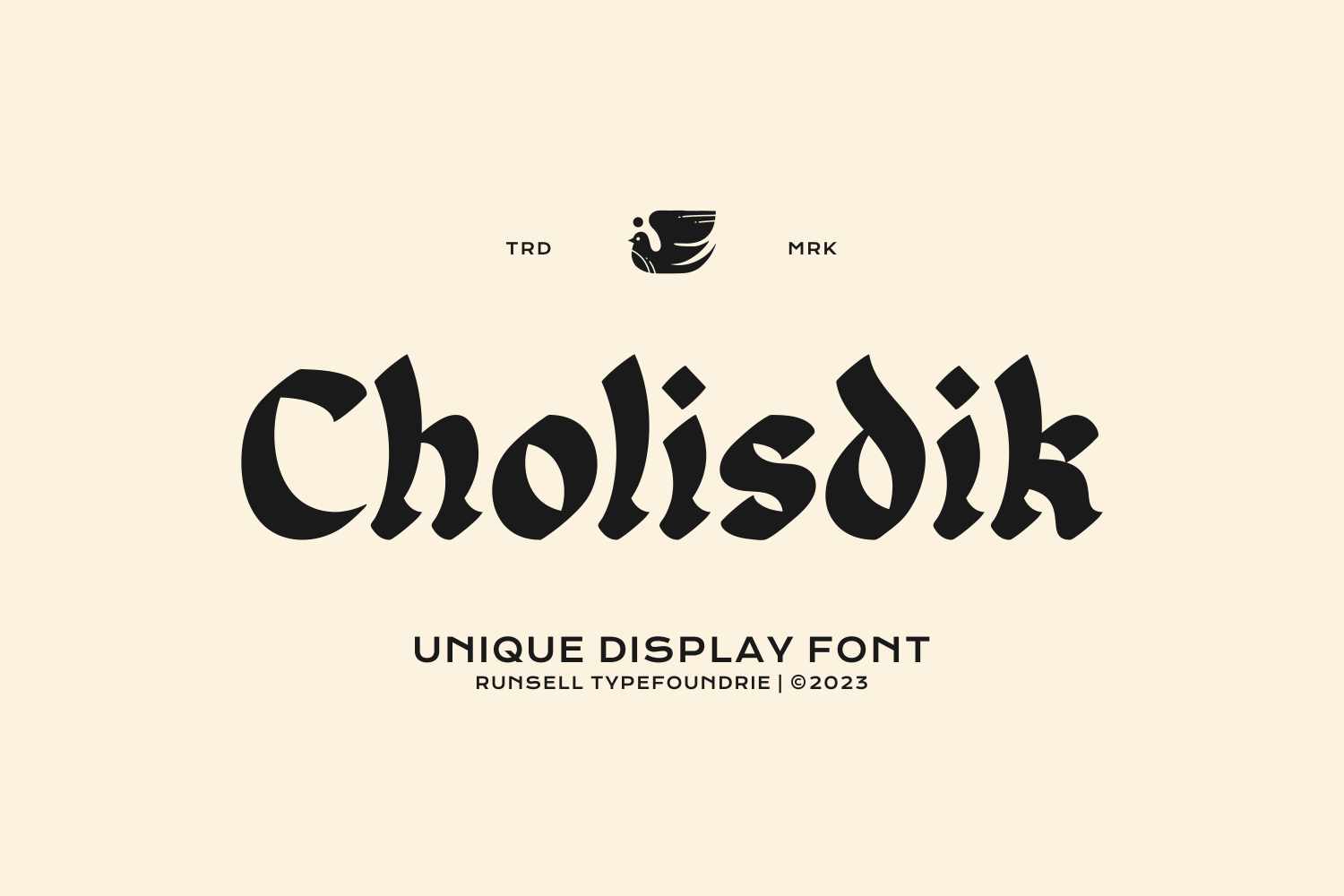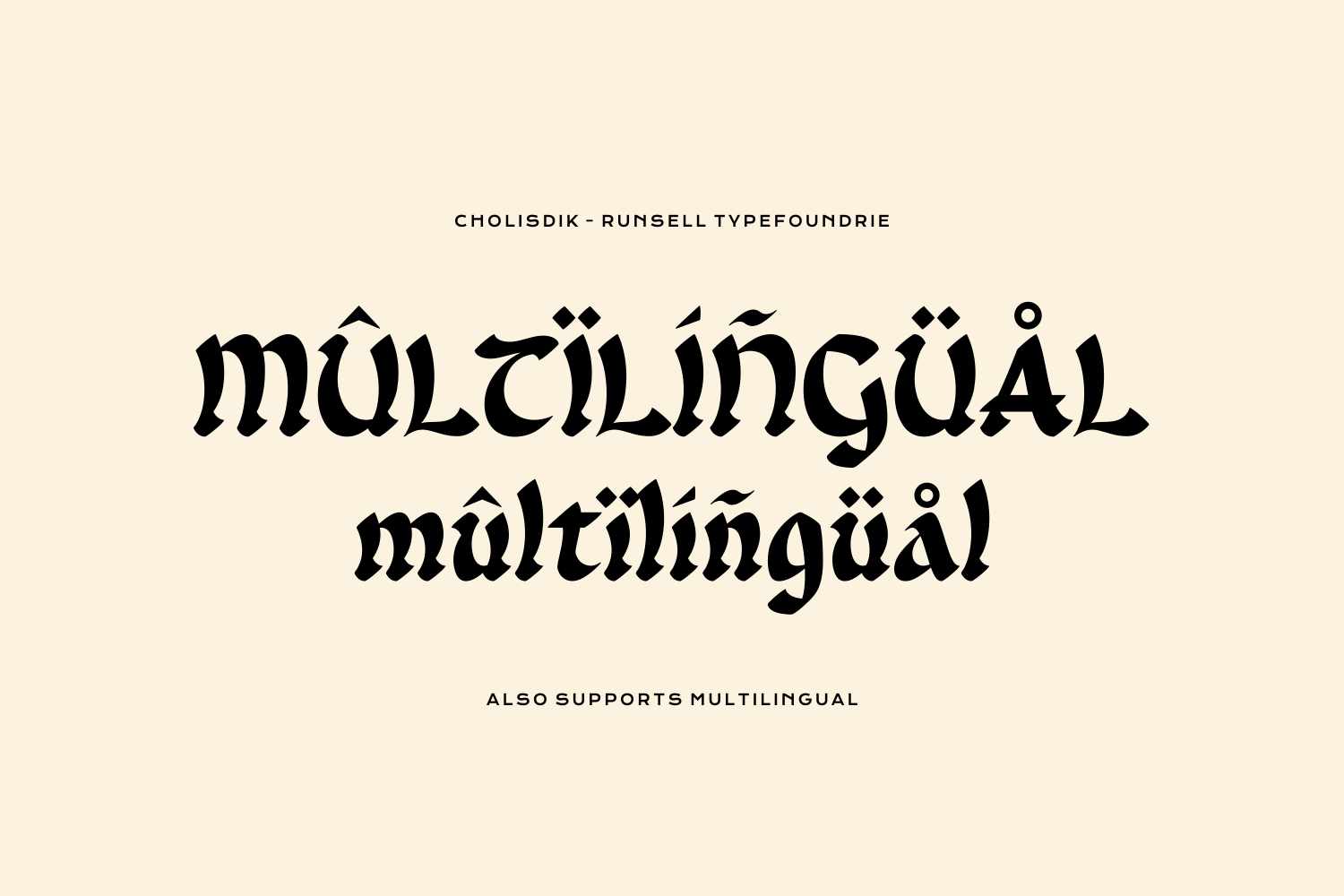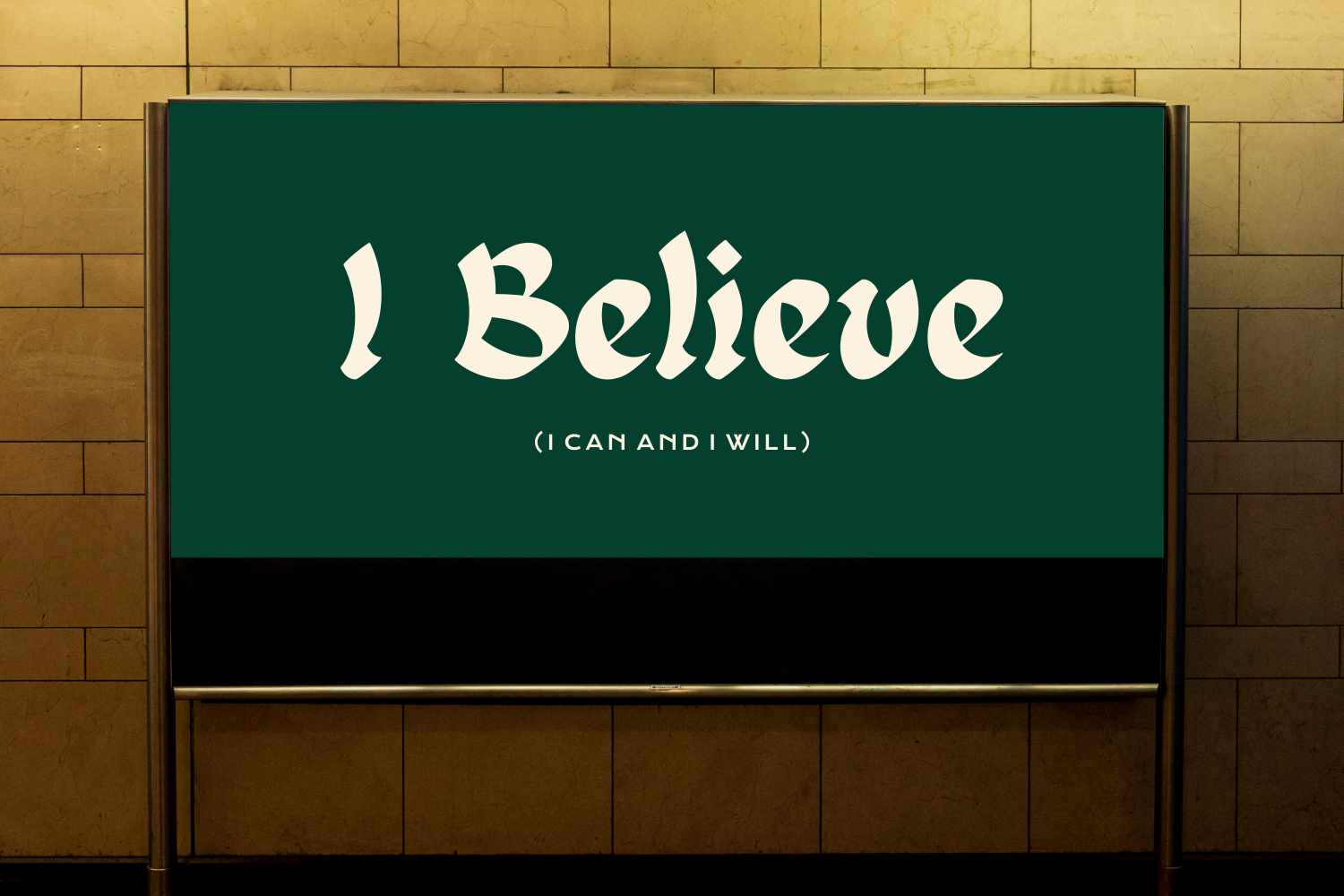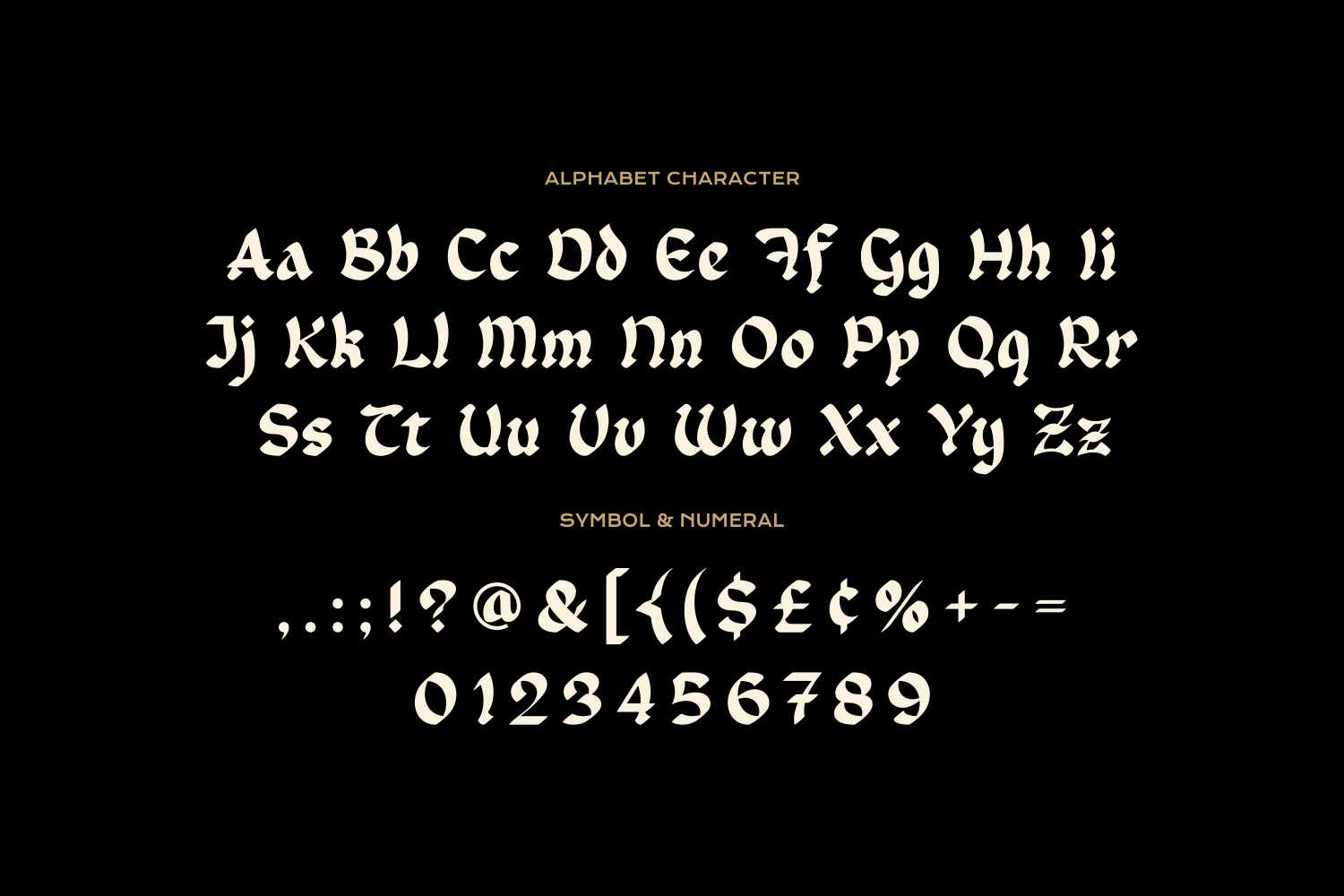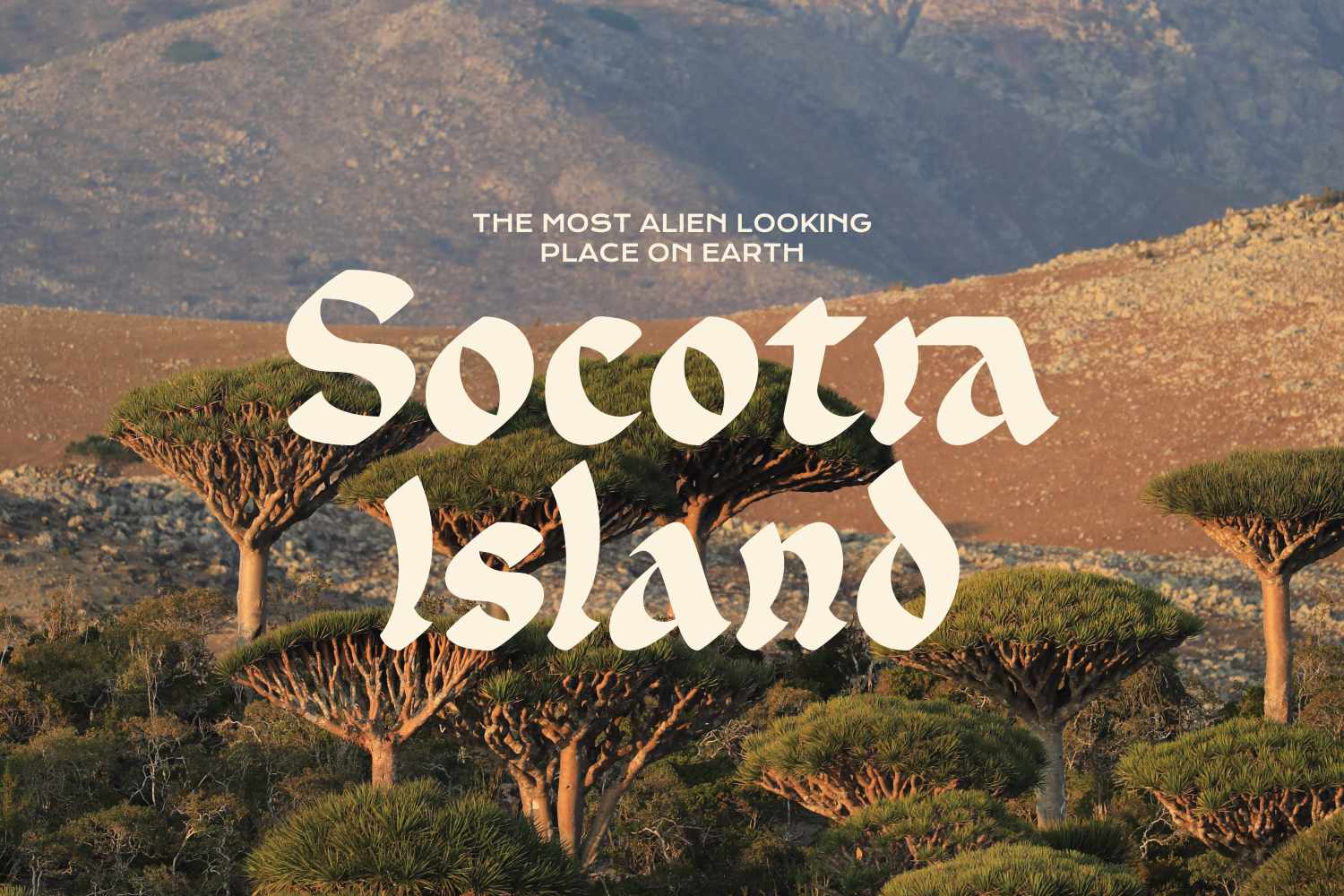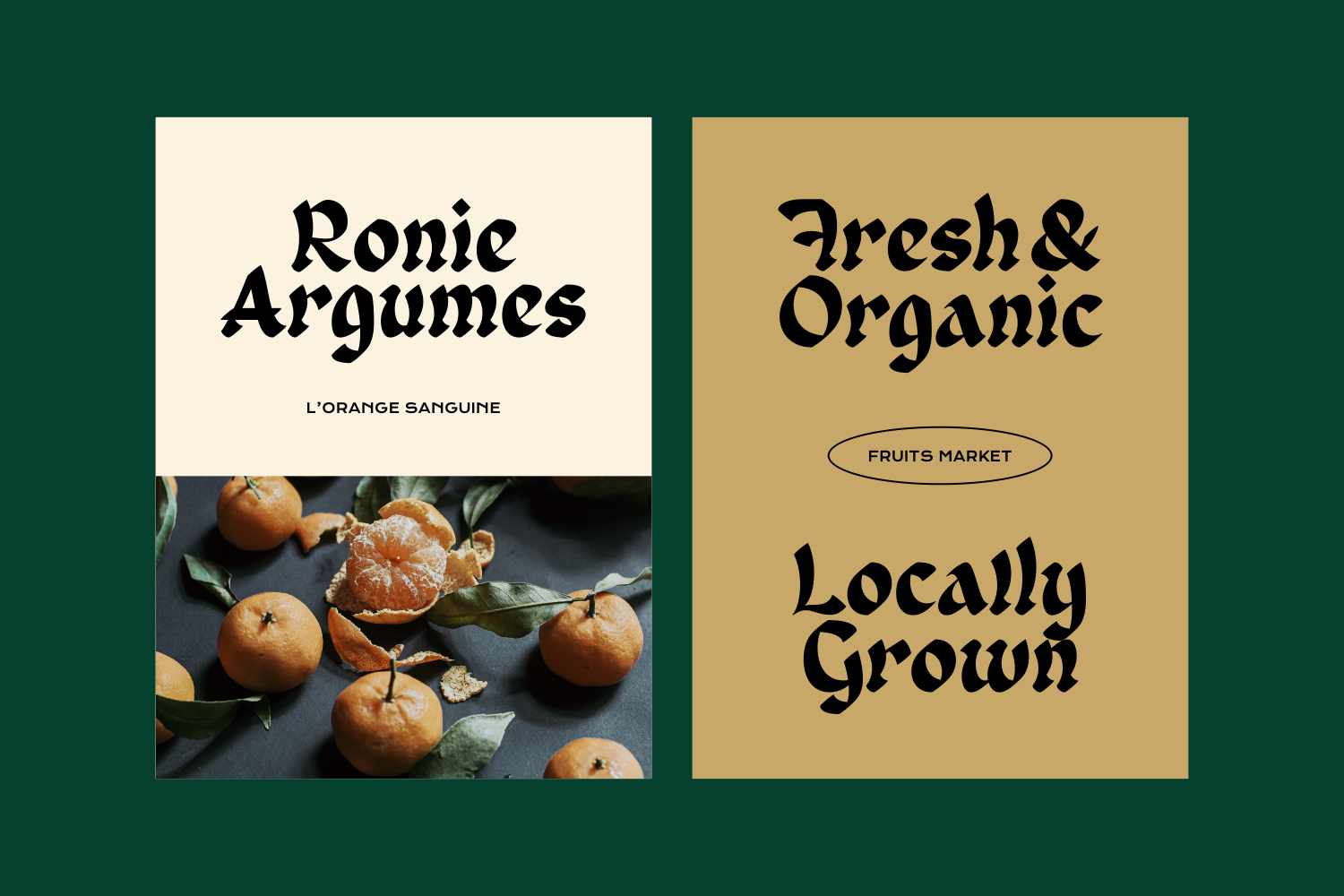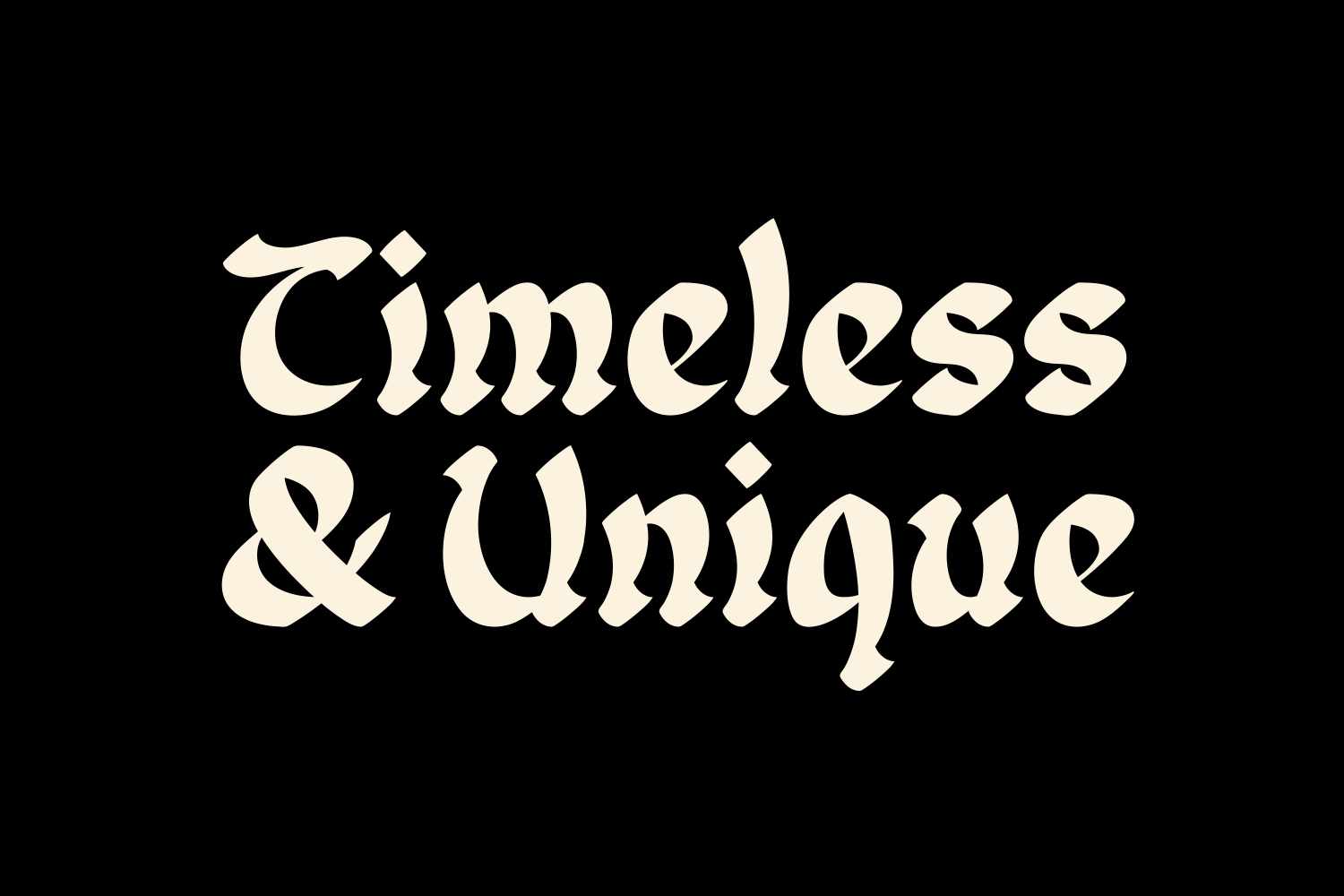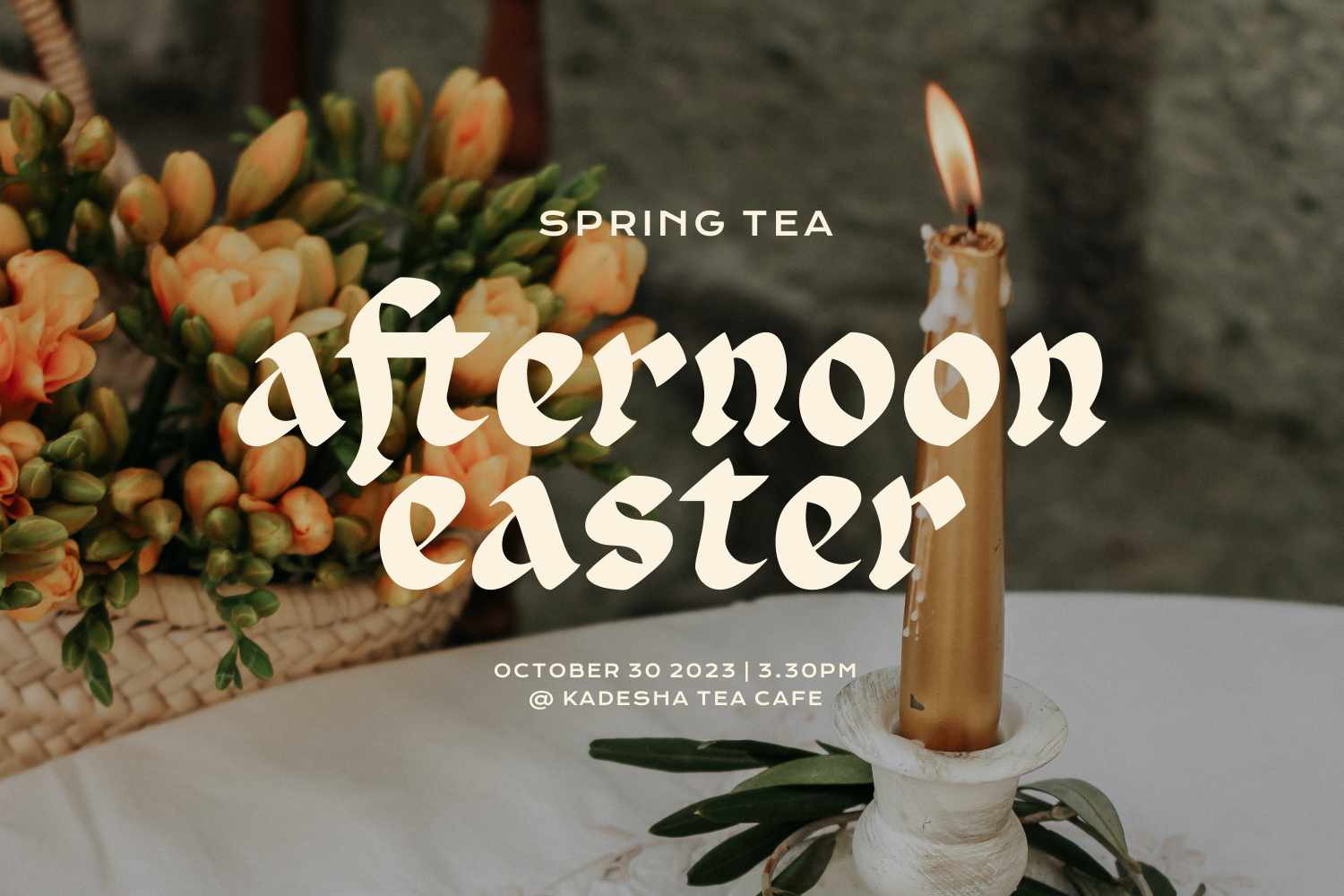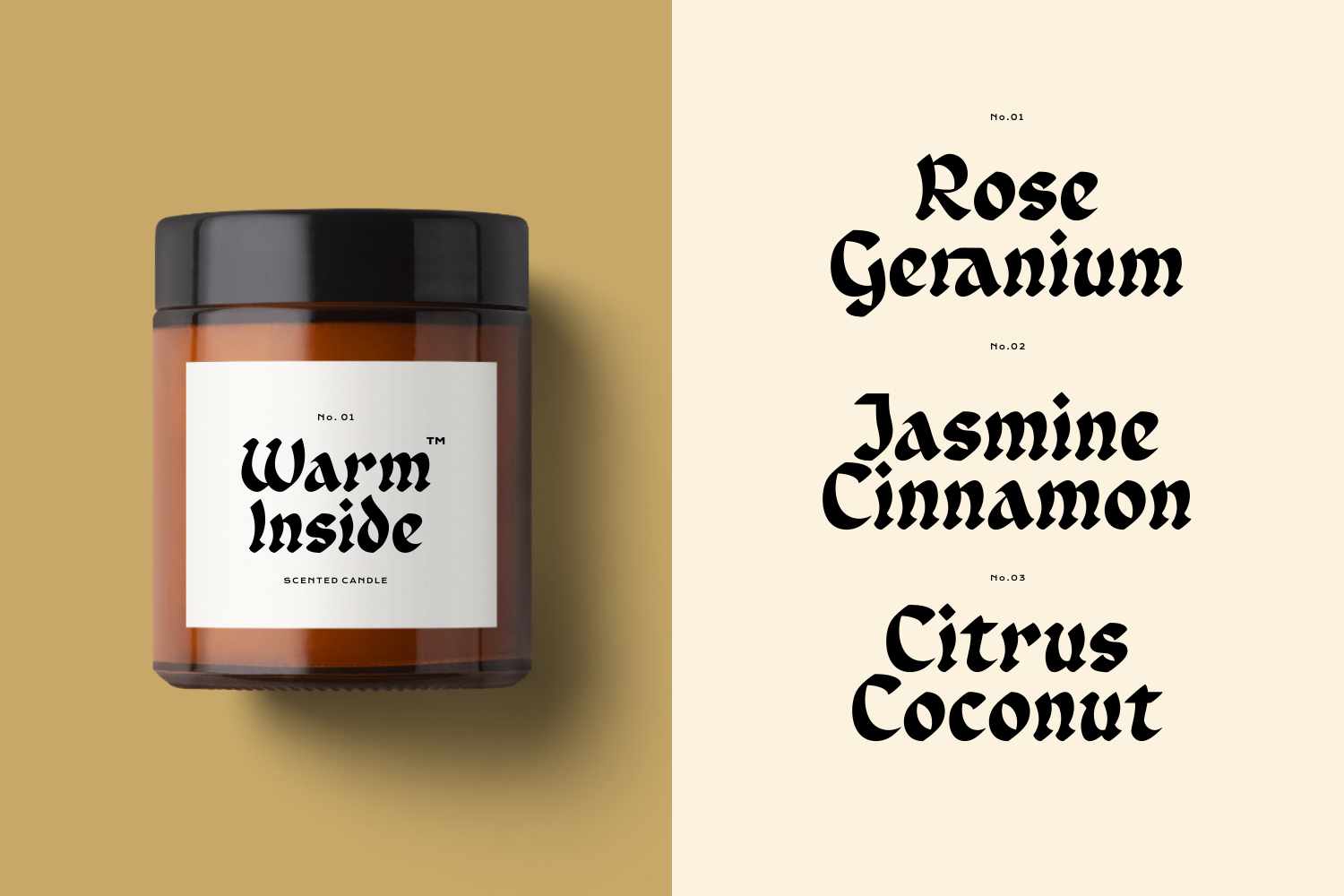
Cholisdik is a unique display font that merges the charm of medieval calligraphy with a modern twist, resulting in a typeface that is both bold and captivating. Its angular strokes and ornamental flourishes lend a sense of tradition, while the smooth curves and refined balance make it perfect for contemporary branding. Cholisdik stands out with its gothic influence and organic rhythm, designed to catch the eye in editorial headlines, product packaging, or cultural posters.
Crafted by Runsell Typefoundrie, Cholisdik includes over 20 ligature characters and extensive multilingual support, allowing it to shine in diverse design contexts. Whether you’re creating a vintage-inspired label, a nostalgic travel ad, or an artisanal candle brand, this typeface adds a sense of timeless uniqueness and handcrafted depth to your visual storytelling.
Cholisdik